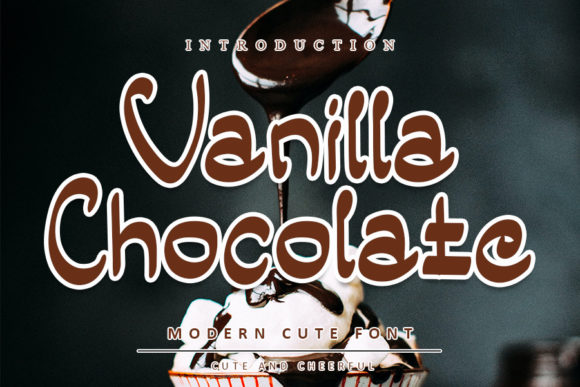
Welcome to the world of Vanilla Chocolate Font, a display font that captures the essence of playful energy and timeless elegance. Crafted with passion by FL Space, this font family exudes a character uniquely suited for your trendsetting projects, adding a touch of individuality to every design.
Immerse yourself in the captivating allure of Vanilla Chocolate's distinct style, where each letter dances with personality. Its carefree charm lends itself effortlessly to a myriad of creations, from eye-catching logos that ooze vibrancy to quirky posters that spark joy.
Picture this: Your sports logo adorned with the Vanilla Chocolate Font, radiating power and agility. The font's dynamic curves and sharp angles evoke a sense of motion, perfectly capturing the spirit of competition. Or envision your social media posts adorned with Vanilla Chocolate's playful touch, drawing your audience in with its captivating allure.
But Vanilla Chocolate's versatility extends far beyond the realm of sports and social media. Unleash your creativity and let your imagination run wild as you explore its potential in branding, packaging, and even fashion designs. Each project infused with Vanilla Chocolate's magnetic charm becomes an irresistible invitation to engage and connect with your audience.